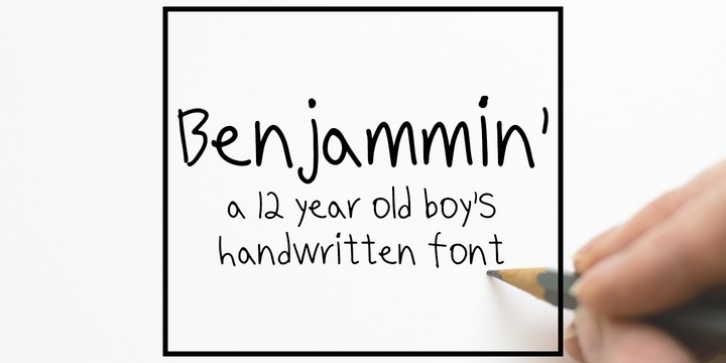
Benjammin' was designed by Tate Chaffin and published by SavoringSurprises. Benjammin' contains 1 style.
Benjammin' is a handwritten sans-serif font. My 12 year old brother wrote this font himself, and it would be great for any kid's design or project!
- Contains over 200 accented characters for language support. Some of the languages supported are: English, Spanish, Portuguese, German, Italian, French, Polish, Catalan, Irish, Norwegian, Croatian, Gaelic, and more! If you would like to know if a certain language is supported, please contact me with the language and/or any special characters you wanted to know about.